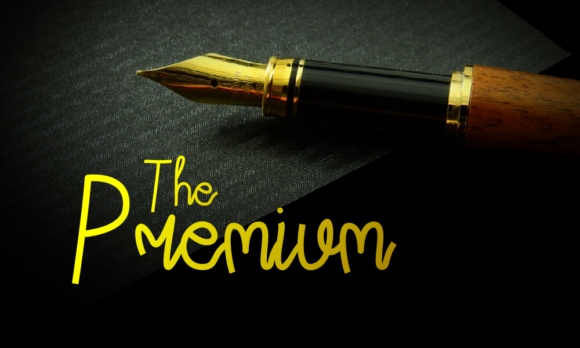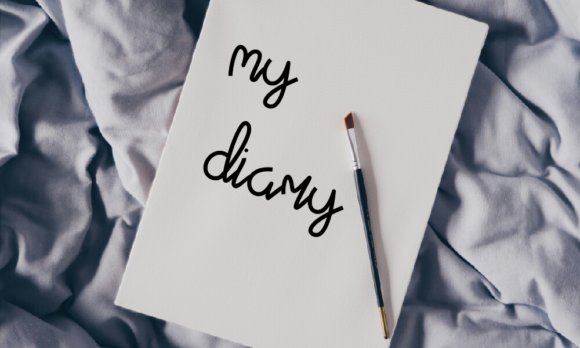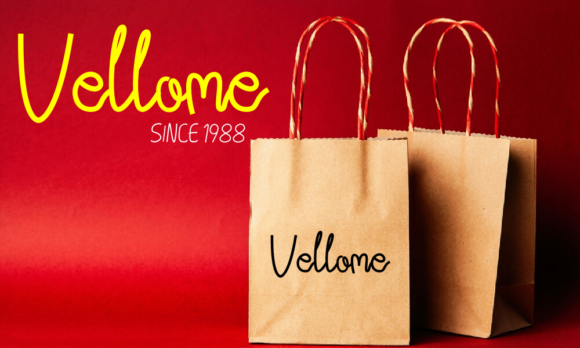
About Tamasya Font
Tamasya is a cute and simple lettered handwritten font that can be used for all chalkboard quotes or teaching material! Its authentic look will add a personal and realistic feel to your designs.